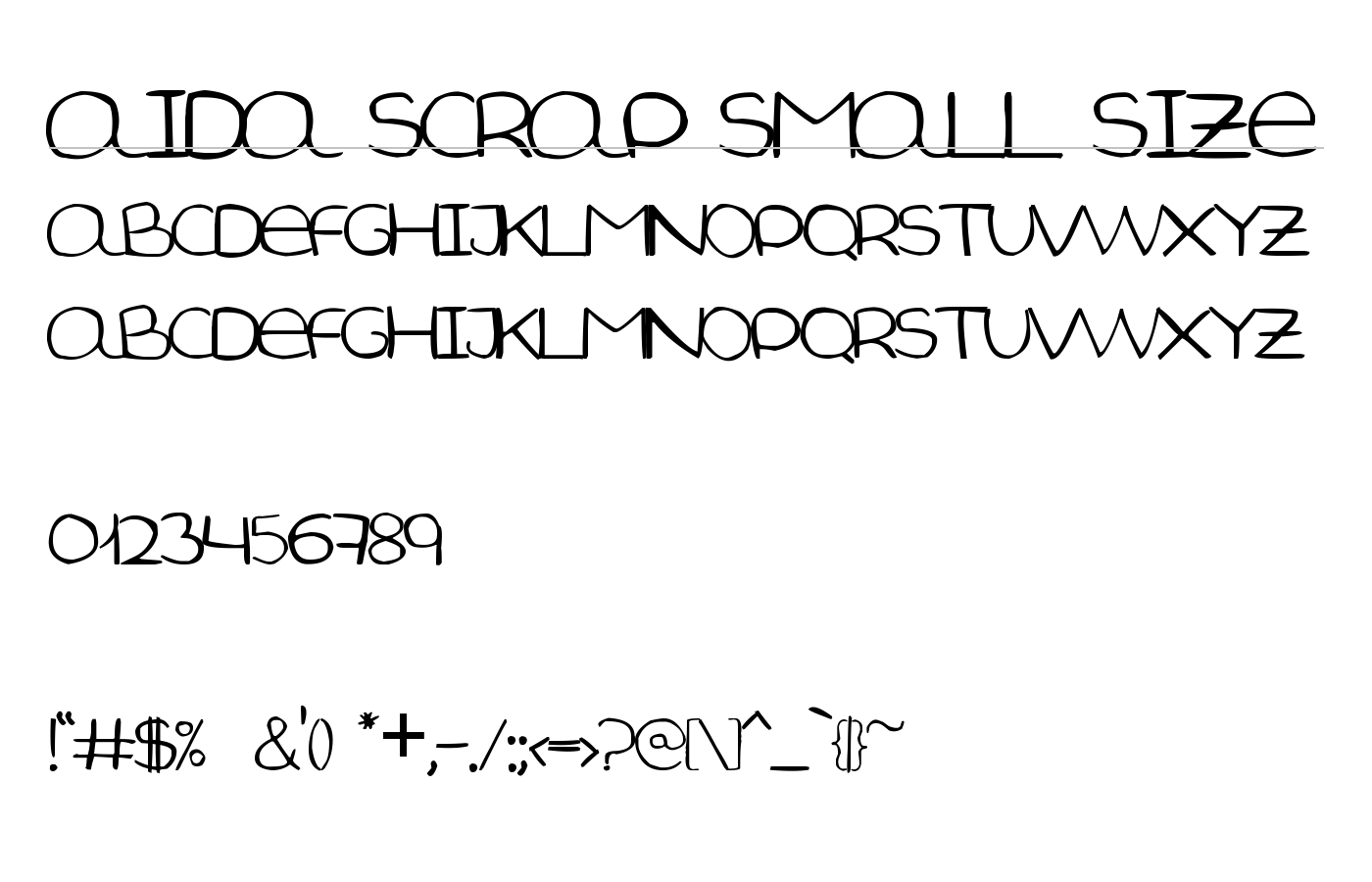
Aida Garmo - Small Size Font is a playful and casual sans serif typeface with a hand-drawn feel, characterized by its thin strokes and slightly irregular letterforms. Its tall x-height and open, airy spacing make it highly legible and suitable for creative, informal designs like children’s books, whimsical branding, and friendly web content. This font’s unique personality adds charm and approachability, making it an excellent choice for projects that want to convey friendliness and creativity.
Aida Garmo - Small Size Font
About Aida Garmo - Small Size Font
| Font family | Aida Garmo - Small Size Font |
| Designer | Aida Garmo |